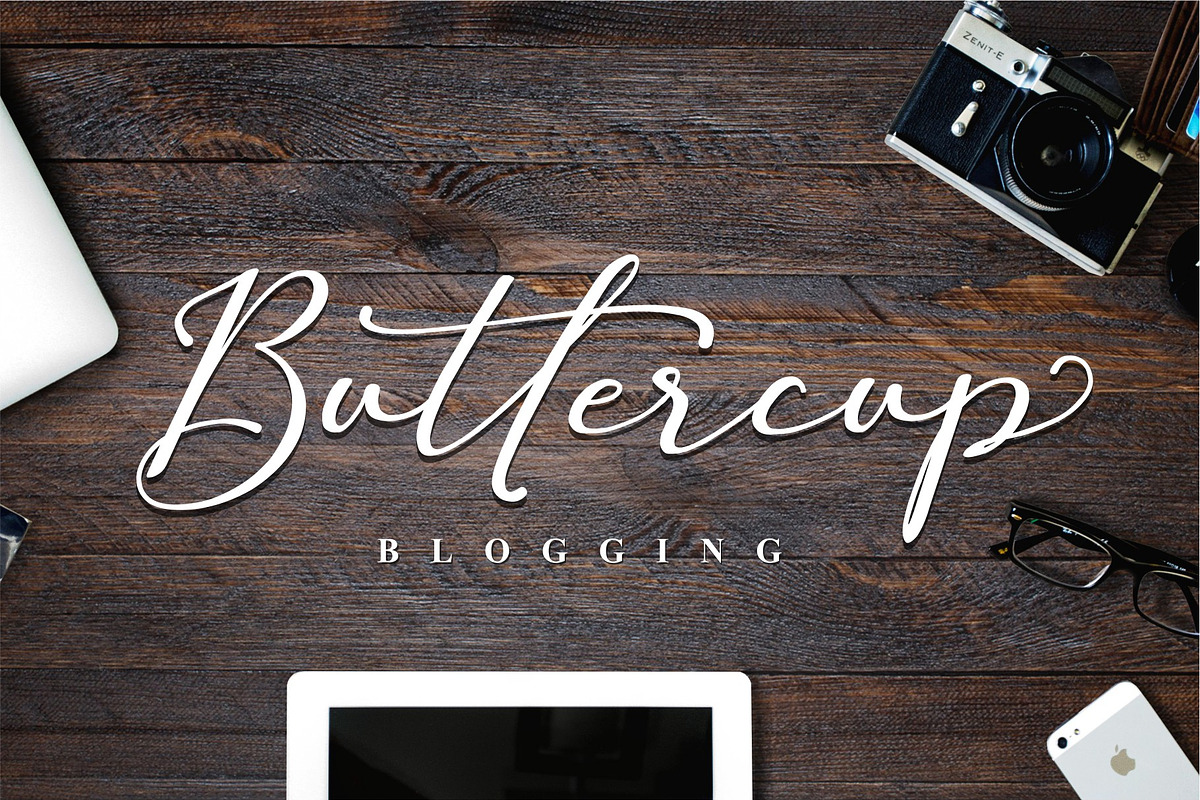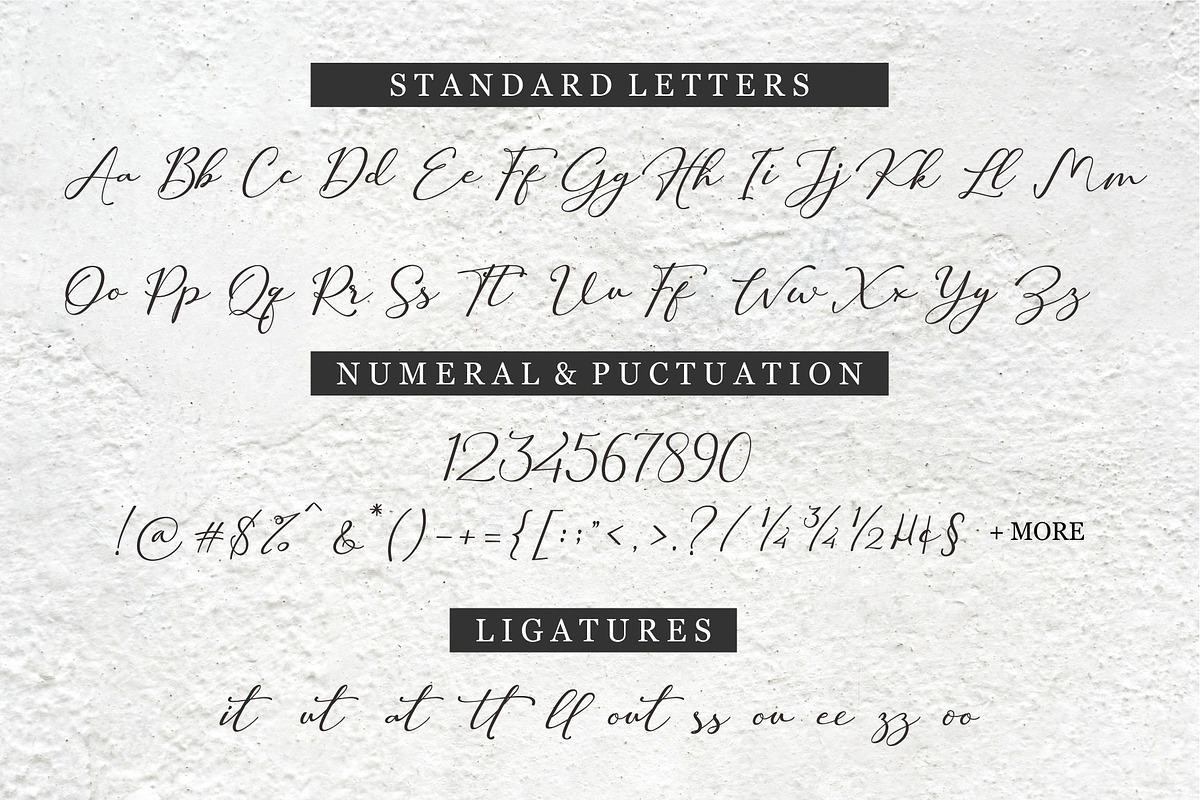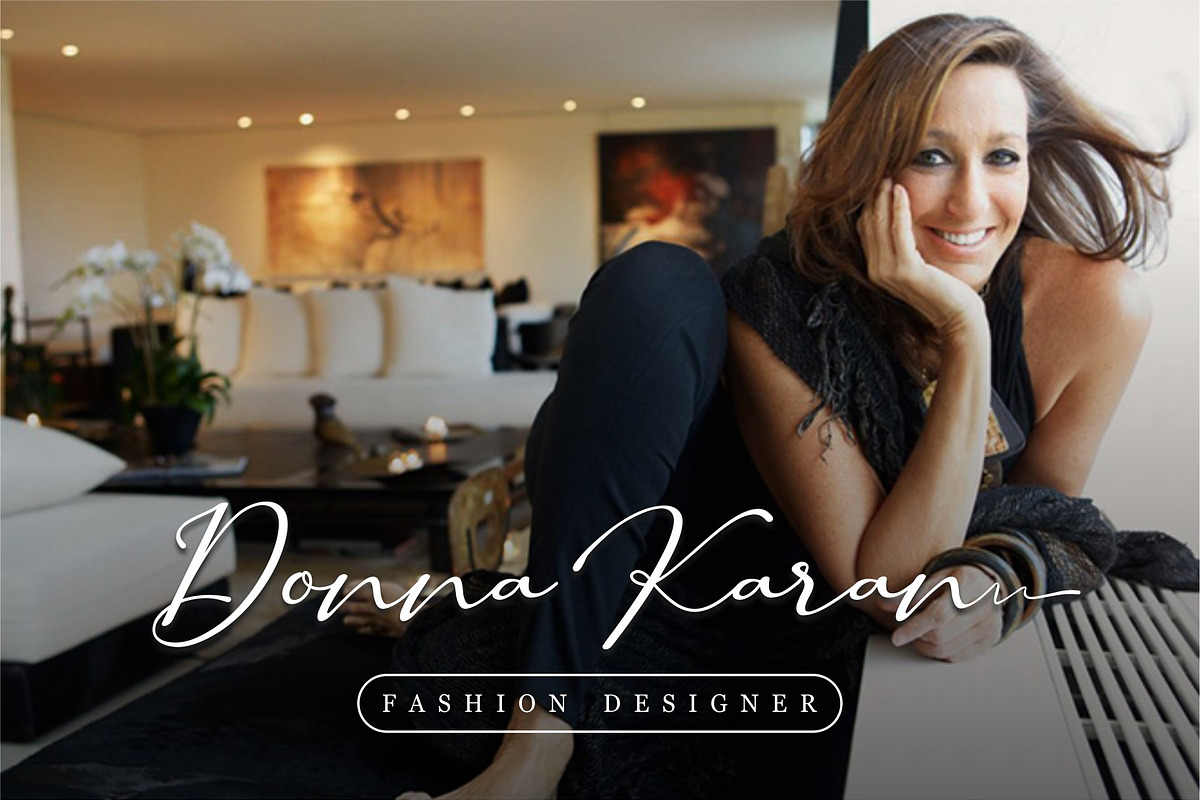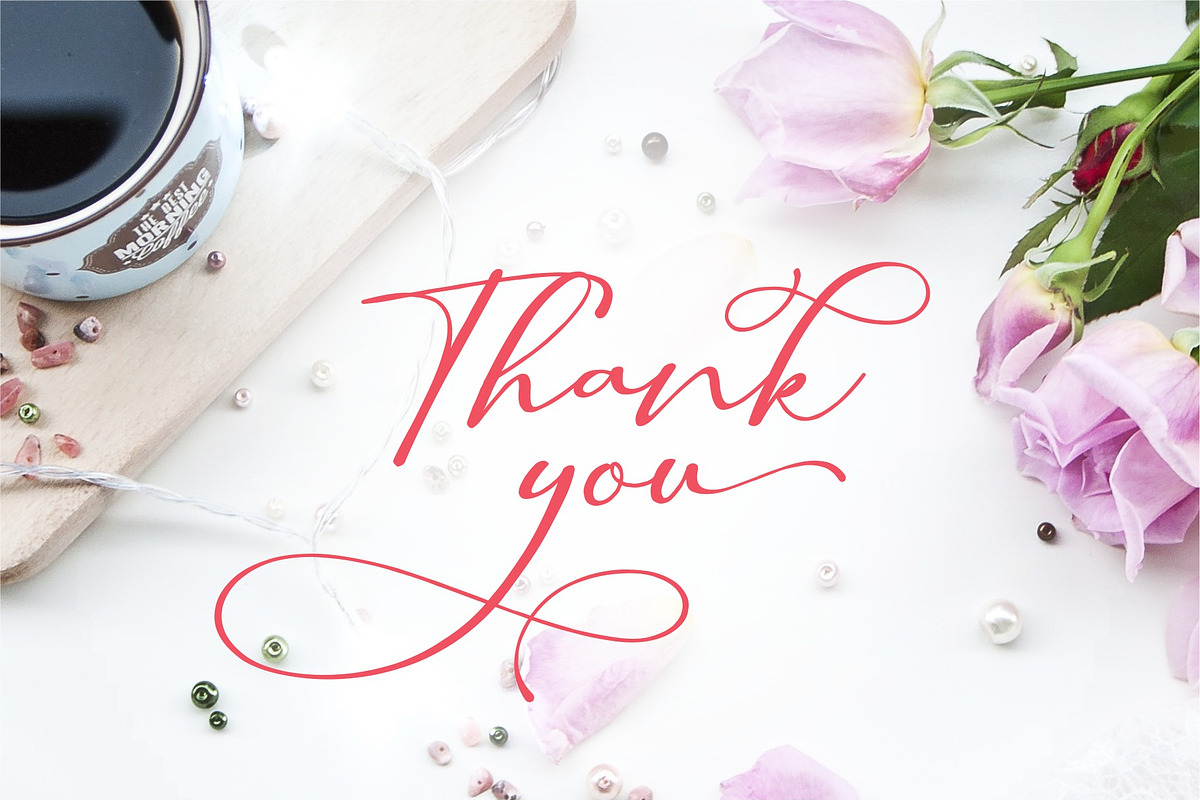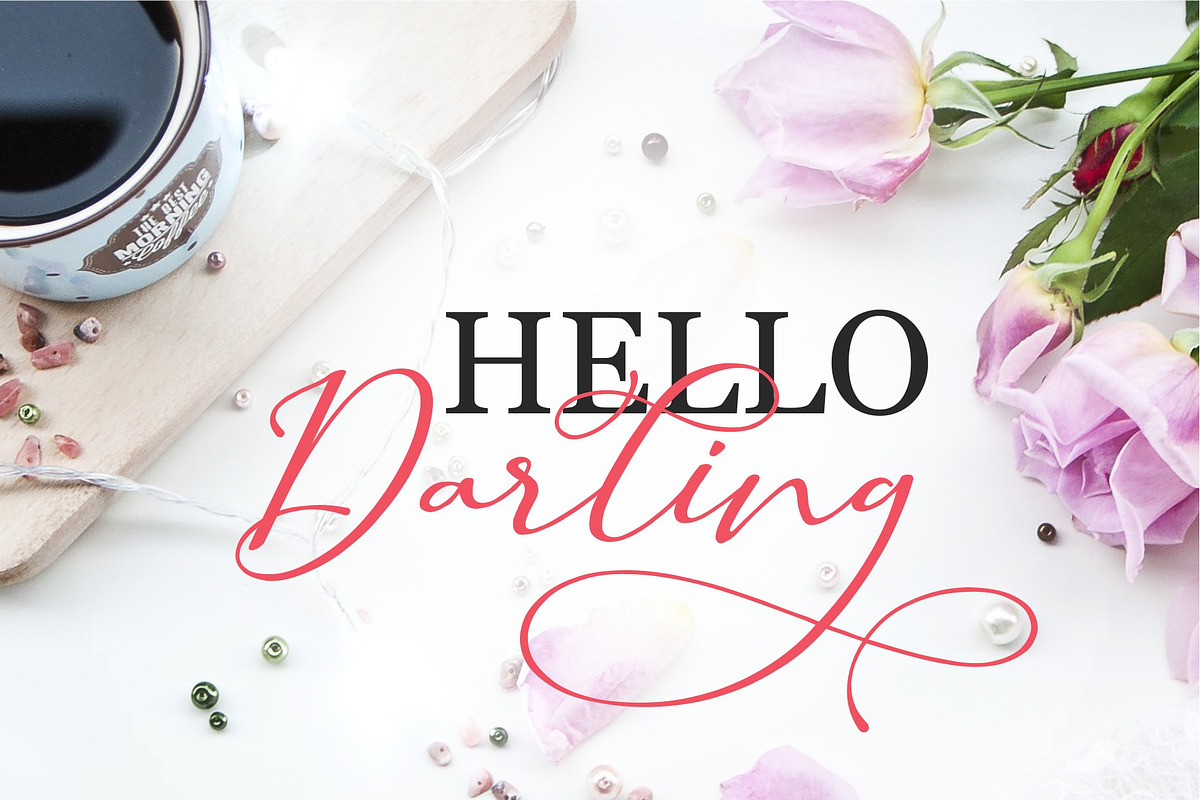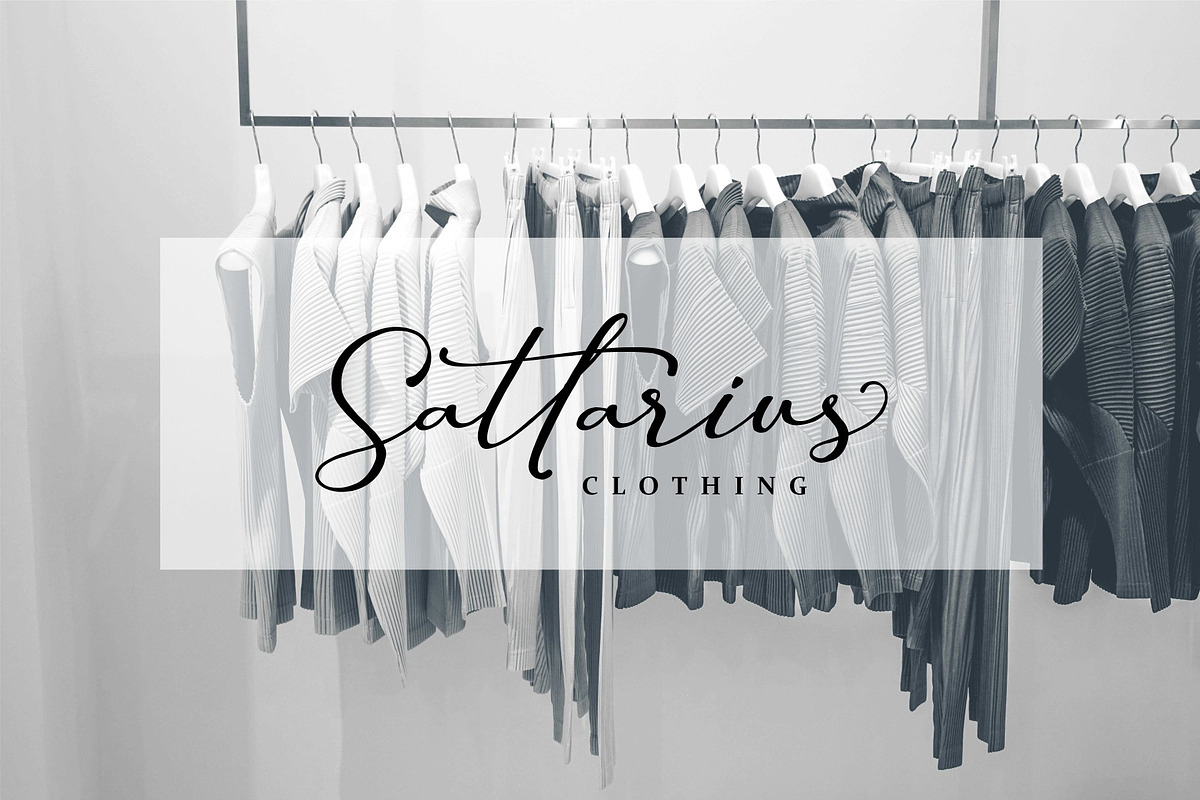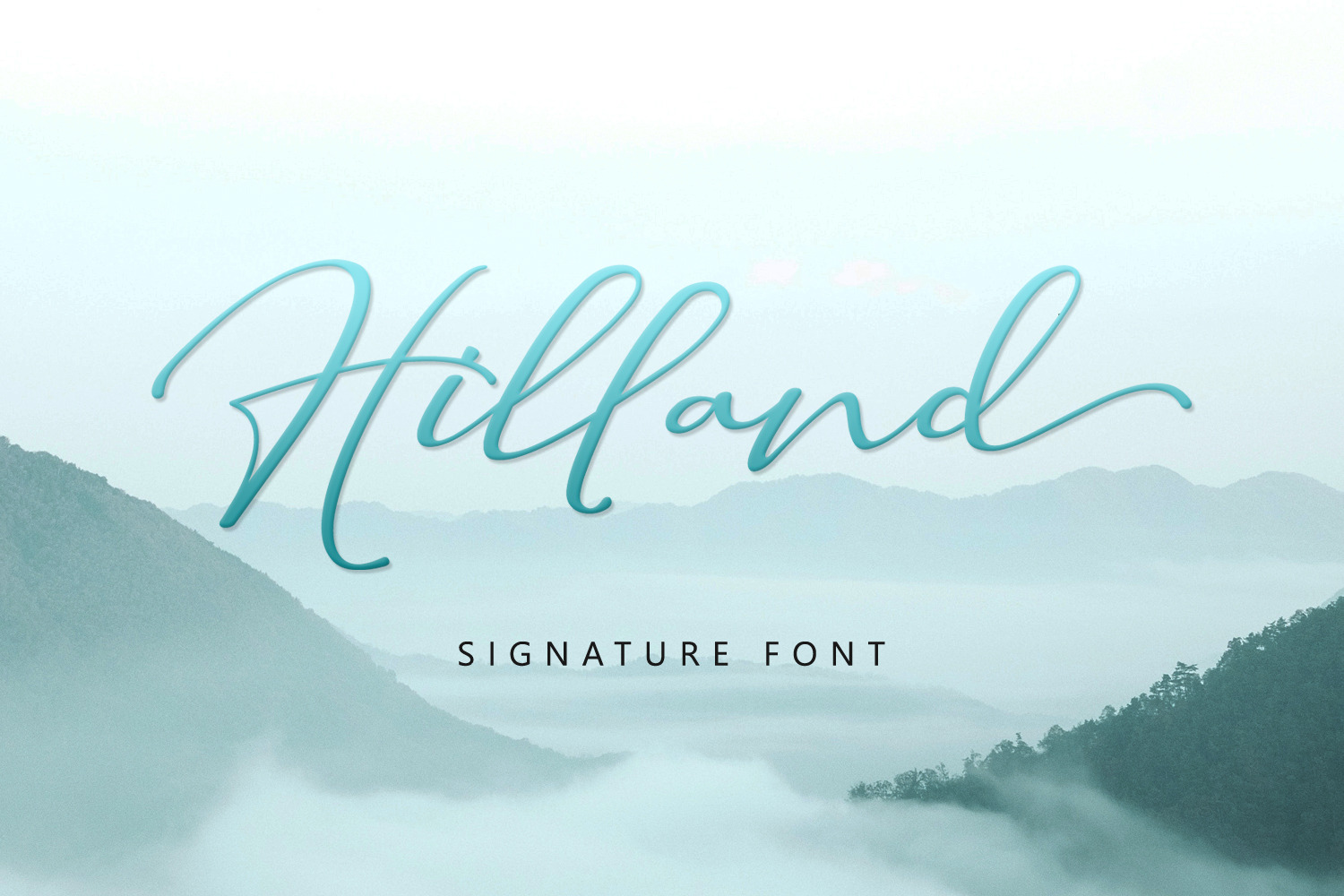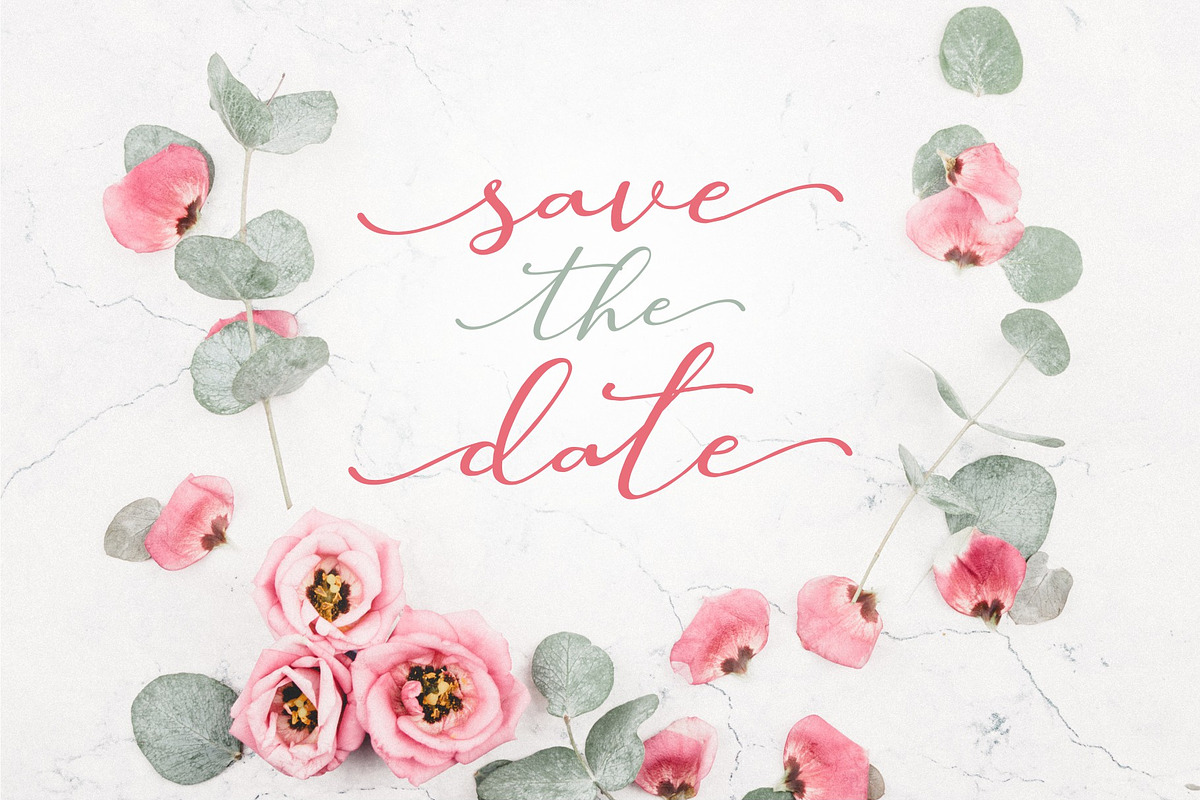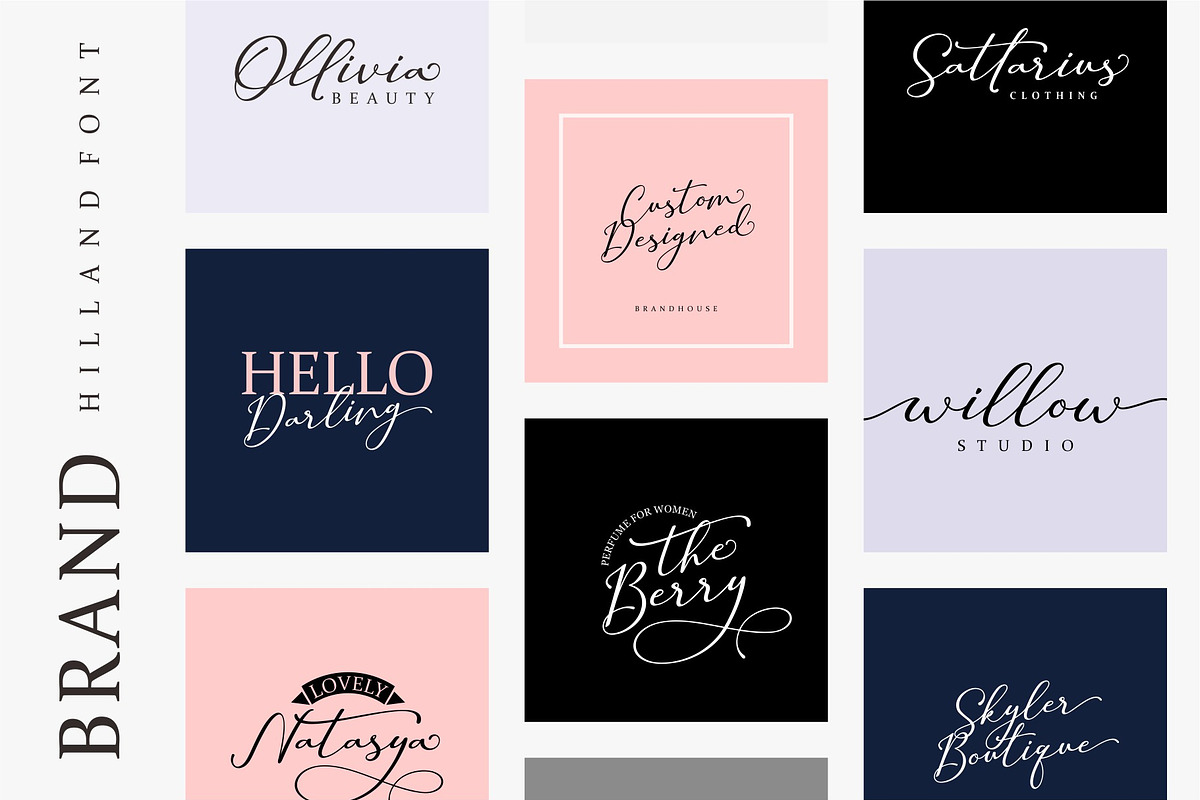
Hilland | A Signature Font
The Hilland is an elegant signature typeface. It has a dancing baseline which will give your design a fresh and modern feel.
It’s perfect for greeting cards, branding materials, christmas, business cards, quotes, posters, and every other design which needs to look upscale and chic!